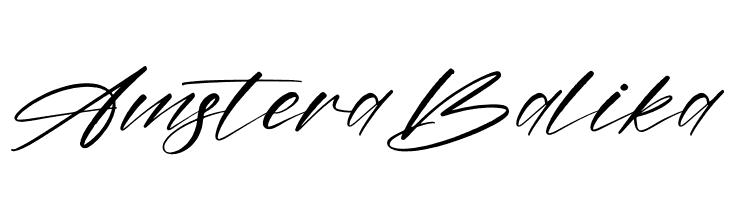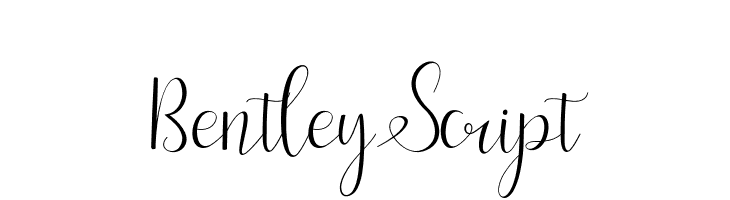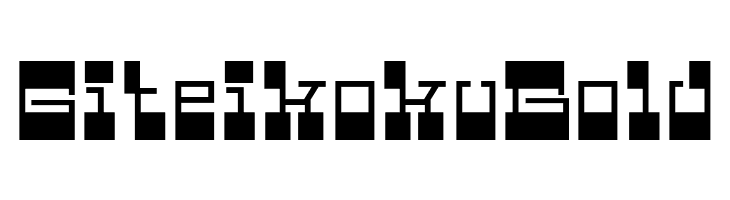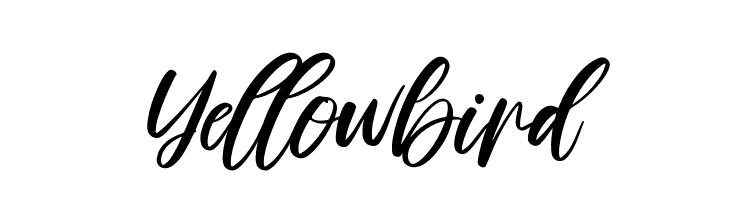
An elegant script font with flowing, high-contrast strokes and graceful curves.
An elegant, italic outline font with a modern and sophisticated style.
A playful and elegant script font with flowing, cursive letters.
A bold, geometric outline font with sharp angles and a modern style.
A bold, hand-drawn font with an expressive and dynamic style.
A playful, handwritten font with smooth, rounded edges and consistent stroke width.
A bold, geometric font with a playful, modern style.
A bold, edgy font with a hand-drawn, grunge-like appearance.
A geometric, modern font with a digital and futuristic style.
A lively, cursive script font with elegant, flowing strokes.